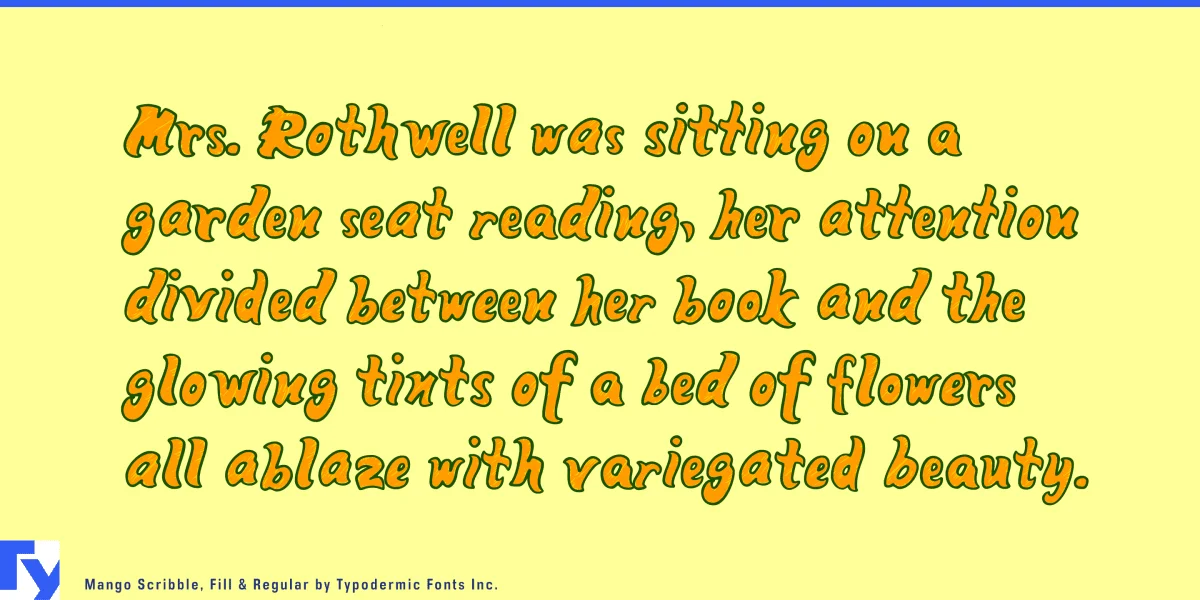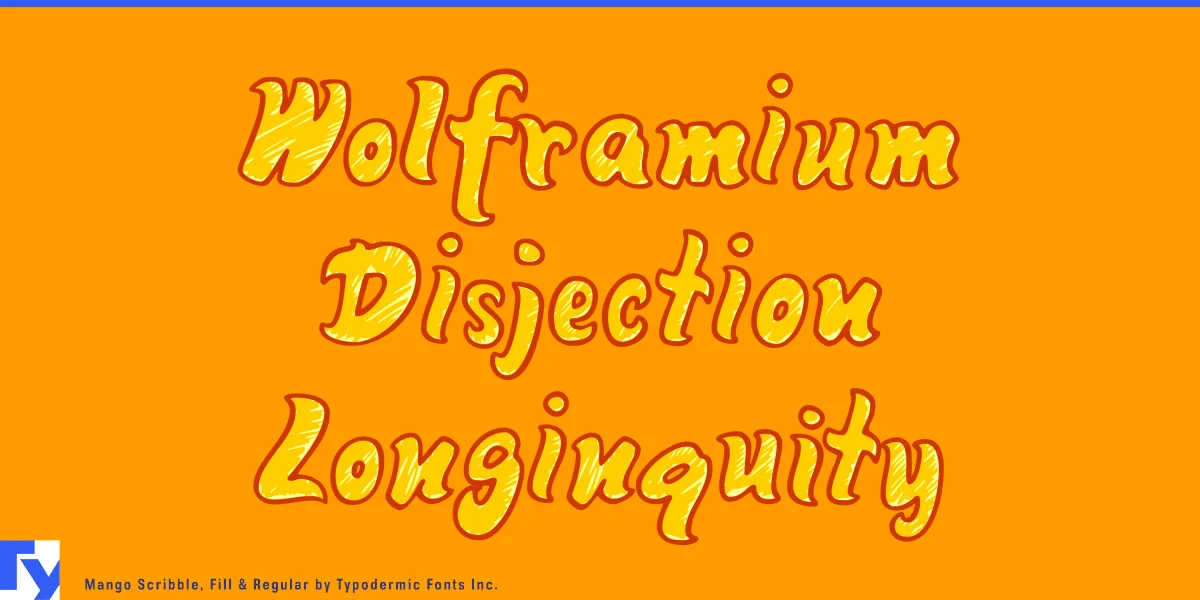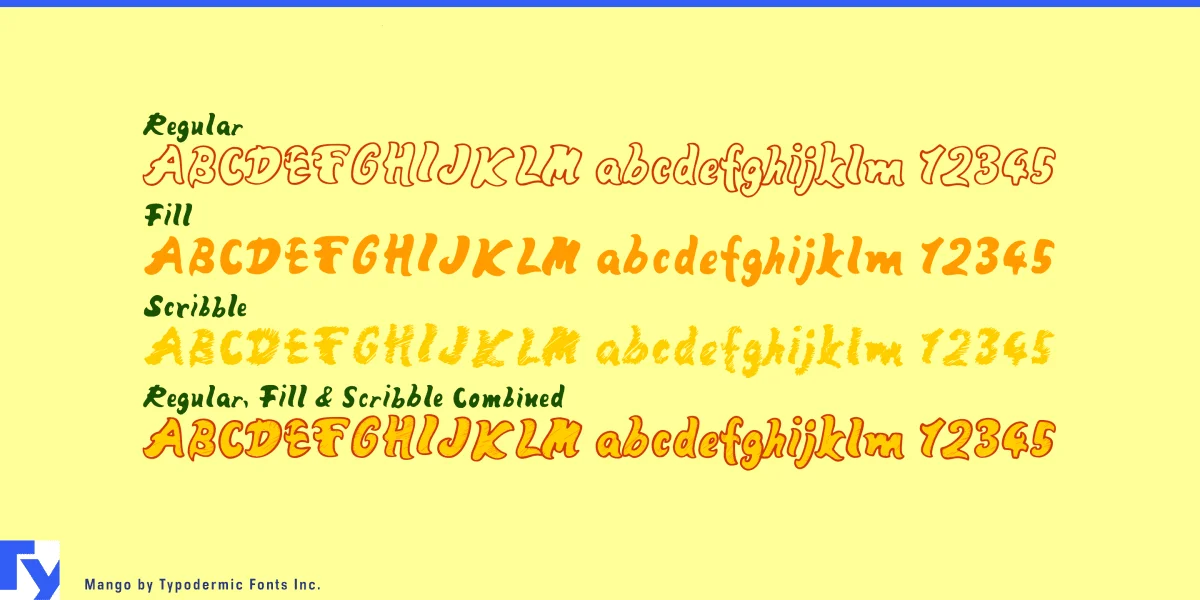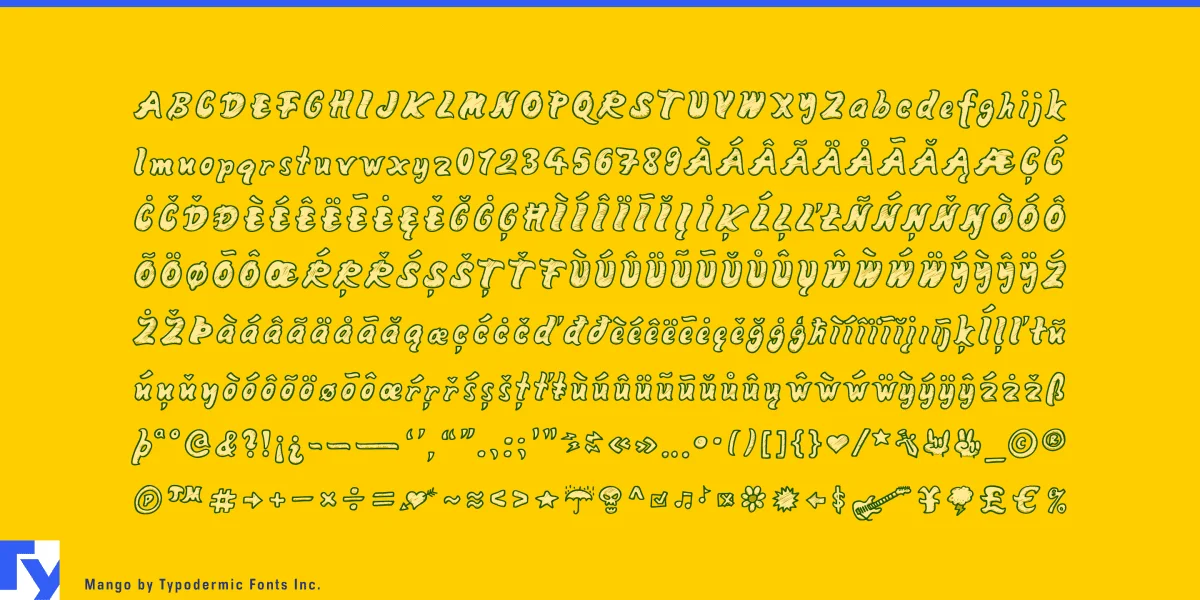
Mango is a cartoon typeface with a laid-back personality. Overlay the scribble and fill layers and play around with different color combinations. Most Latin-based European writing systems are supported, including the following languages. Afaan Oromo, Afar, Afrikaans, Albanian, Alsatian, Aromanian, Aymara, Bashkir (Latin), Basque, Belarusian (Latin), Bemba, Bikol, Bosnian, Breton, Cape Verdean, Creole, Catalan, Cebuano, Chamorro, Chavacano, Chichewa, Crimean Tatar (Latin), Croatian, Czech, Danish, Dawan, Dholuo, Dutch, English, Estonian, Faroese, Fijian, Filipino, Finnish, French, Frisian, Friulian, Gagauz (Latin), Galician, Ganda, Genoese, German, Greenlandic, Guadeloupean Creole, Haitian Creole, Hawaiian, Hiligaynon, Hungarian, Icelandic, Ilocano, Indonesian, Irish, Italian, Jamaican, Kaqchikel, Karakalpak (Latin), Kashubian, Kikongo, Kinyarwanda, Kirundi, Kurdish (Latin), Latvian, Lithuanian, Lombard, Low Saxon, Luxembourgish, Maasai, Makhuwa, Malay, Maltese, Māori, Moldovan, Montenegrin, Ndebele, Neapolitan, Norwegian, Novial, Occitan, Ossetian (Latin), Papiamento, Piedmontese, Polish, Portuguese, Quechua, Rarotongan, Romanian, Romansh, Sami, Sango, Saramaccan, Sardinian, Scottish Gaelic, Serbian (Latin), Shona, Sicilian, Silesian, Slovak, Slovenian, Somali, Sorbian, Sotho, Spanish, Swahili, Swazi, Swedish, Tagalog, Tahitian, Tetum, Tongan, Tshiluba, Tsonga, Tswana, Tumbuka, Turkish, Turkmen (Latin), Tuvaluan, Uzbek (Latin), Venetian, Vepsian, Võro, Walloon, Waray-Waray, Wayuu, Welsh, Wolof, Xhosa, Yapese, Zapotec Zulu and Zuni.